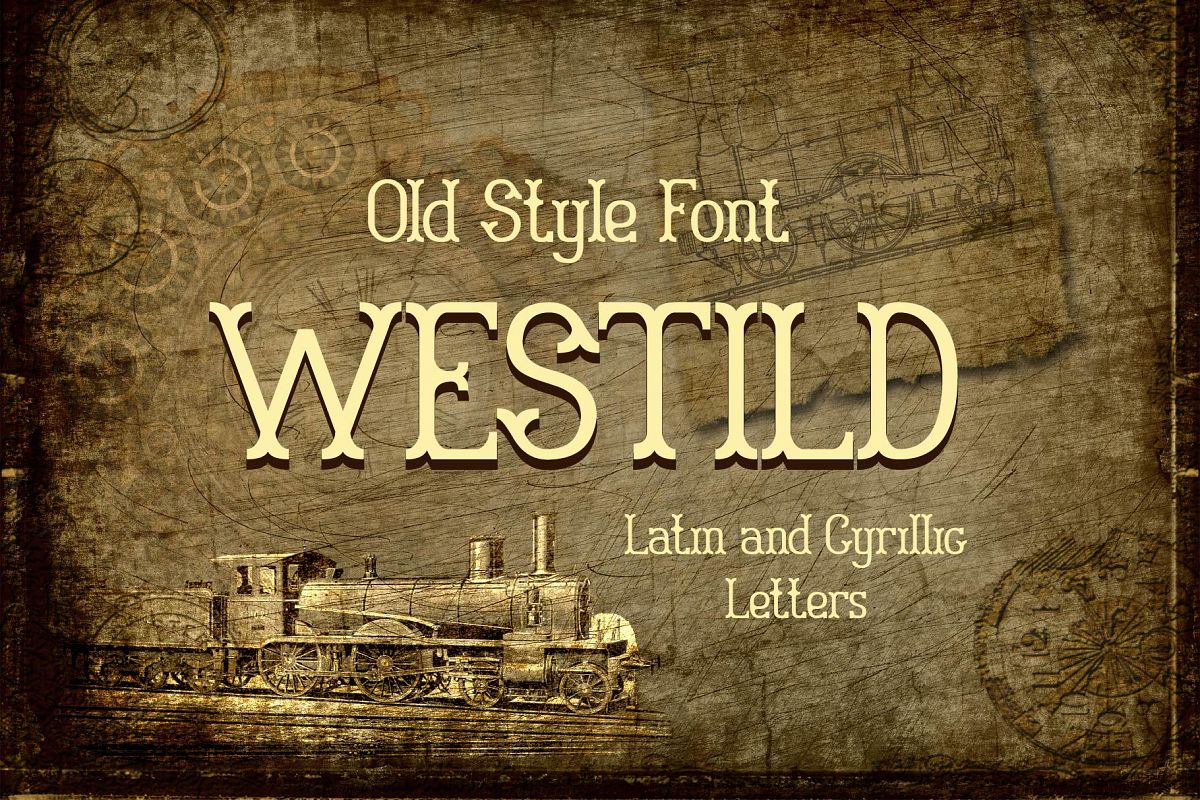
Westild
Introducing Westild slab serif font. It's a good for vintage print. Westild works great for logos, text blocks, posters, packaging and badges.
The Westild font has latin and cyrillic characters, numbers and extended punctuation.